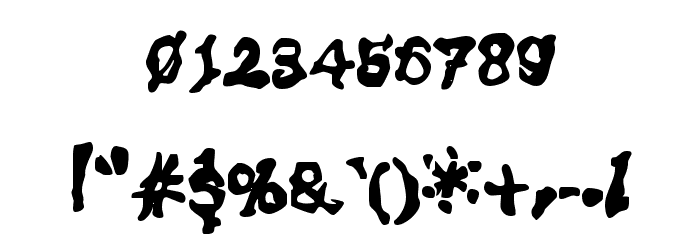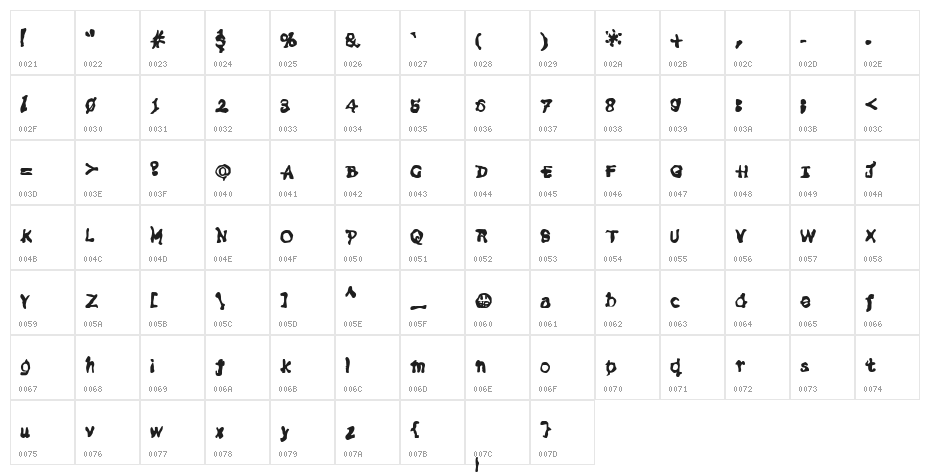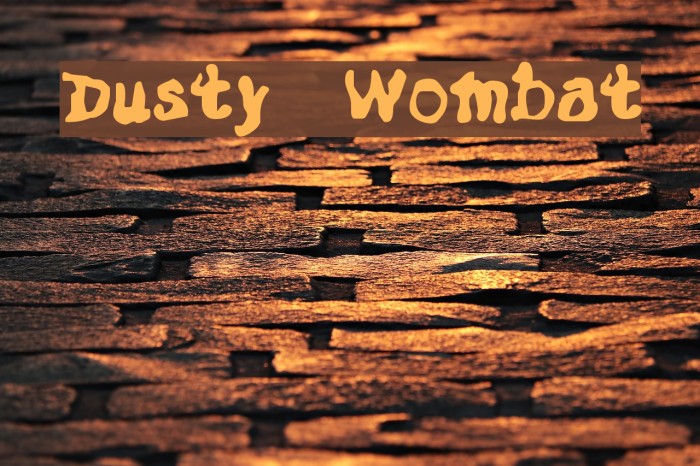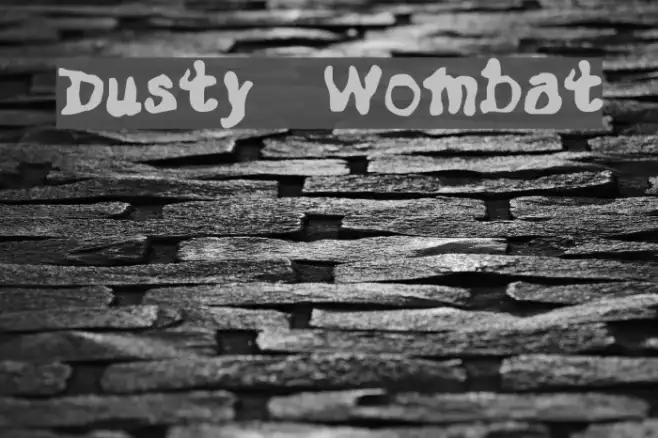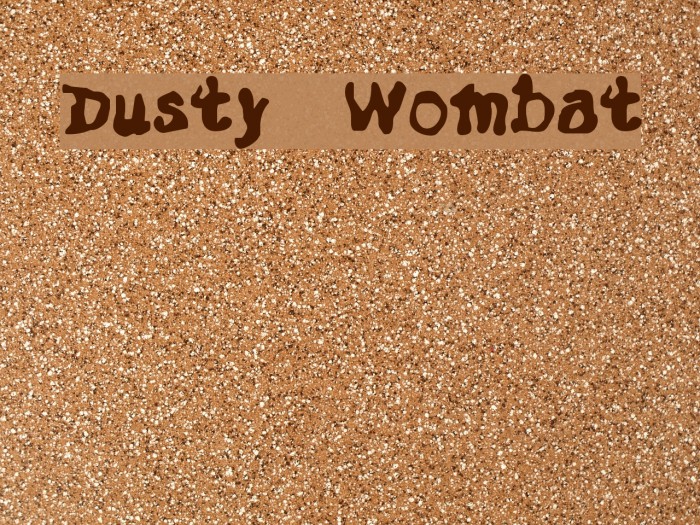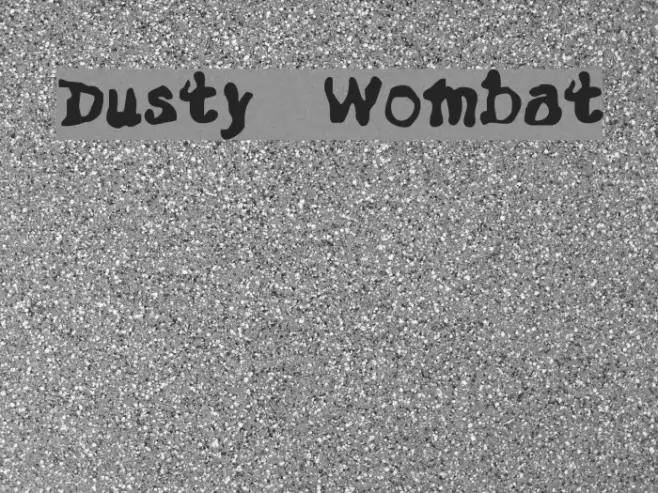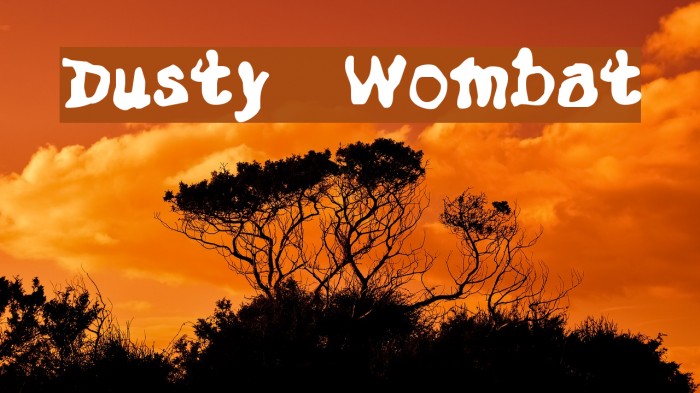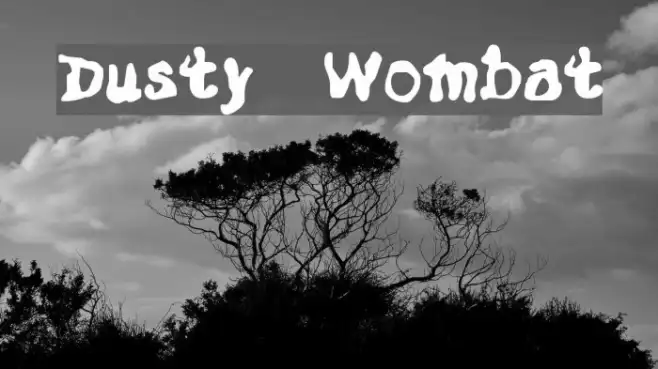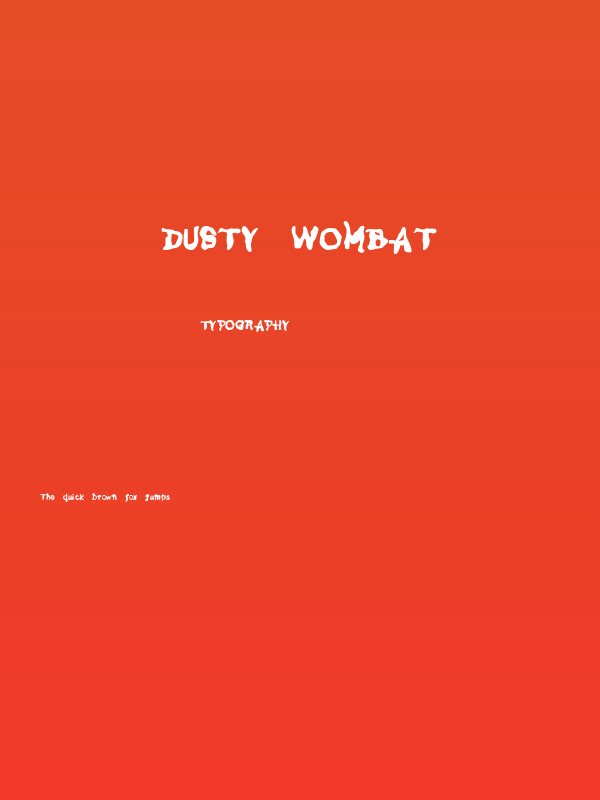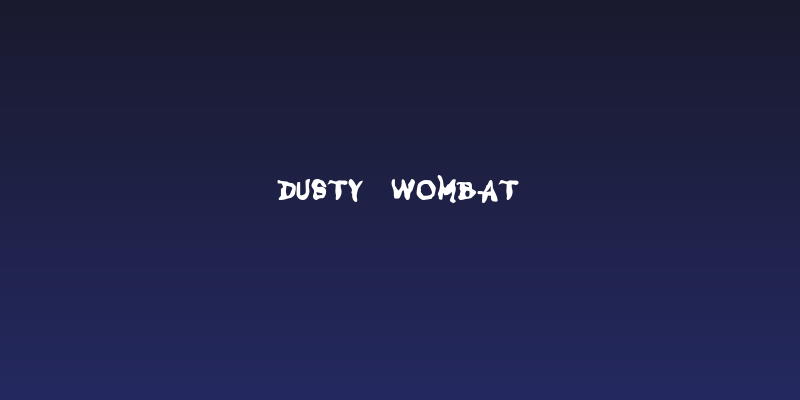
Dusty Wombat Font
Dusty Wombat Description
This font features a bold and playful design with a hand-drawn aesthetic. The characters are irregular and organic, giving a whimsical and artistic feel. The strokes are thick and uneven, adding a sense of movement and energy. The uppercase and lowercase letters maintain a consistent style, with rounded edges and varying line thickness. Numbers and special characters follow the same playful theme, making the font suitable for creative and informal applications. The overall appearance is lively and dynamic, perfect for projects that require a touch of fun and creativity.
Proposed ProjectsIdeal for children's books, playful branding, creative posters, and informal invitations.